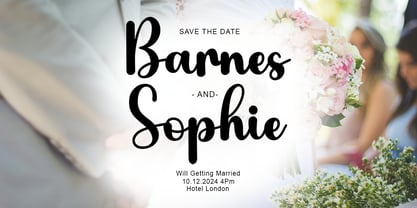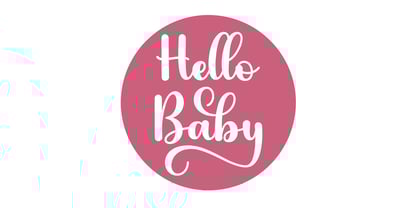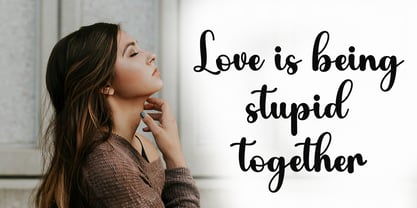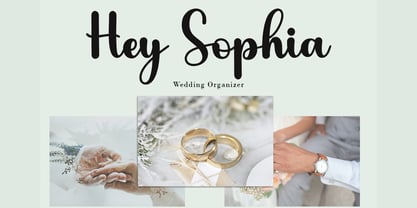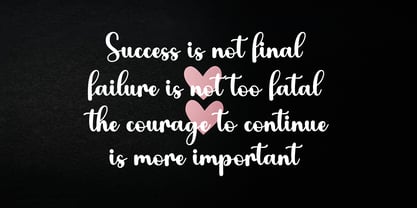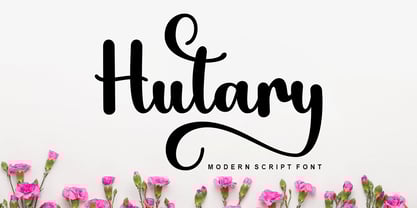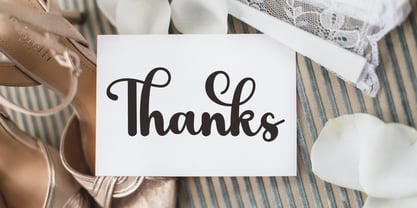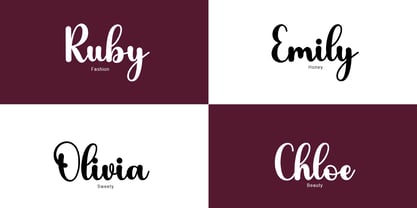
Hutary Script
by Good Design
The Hutary Script Font Family was designed by Agus Pujiyono and published by Good Design. Hutary Script contains 1 styles. More about this family
Hutary Script is a Script Font with Handwritten Style. Hutary Script font made with digital brush pen strokes that making this font look authentic. This font is perfect for fashion brand, wedding invitation, business card, logo brand, signature, and then calligraphy.
Designers: Agus Pujiyono
Foundry: Good Design